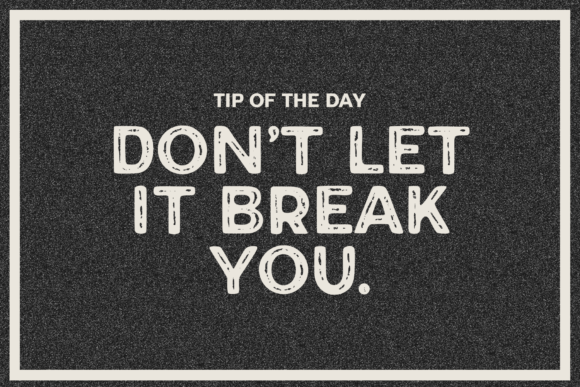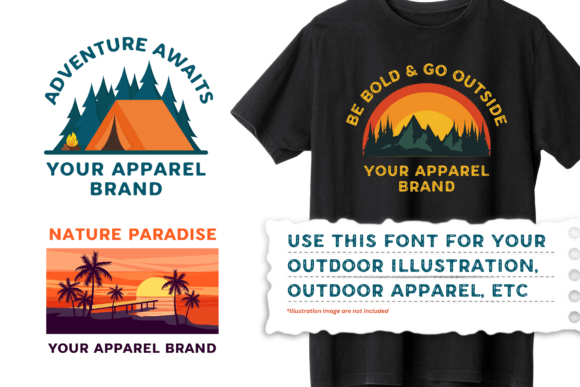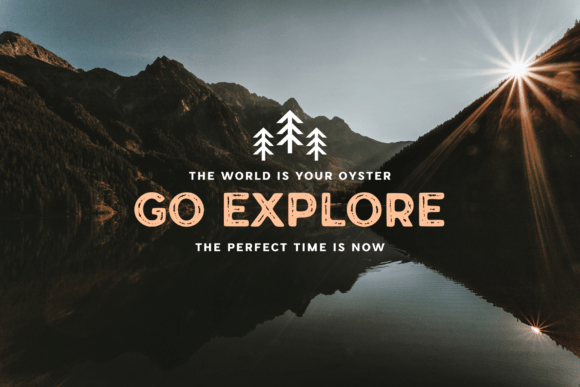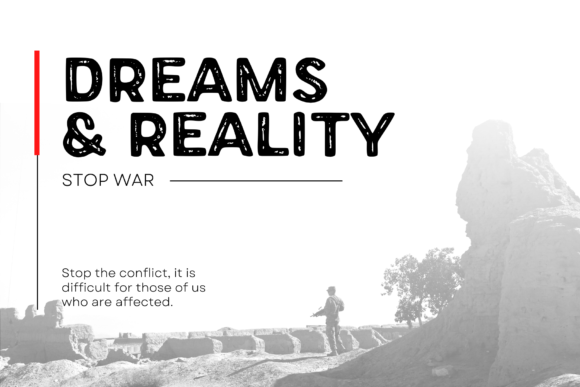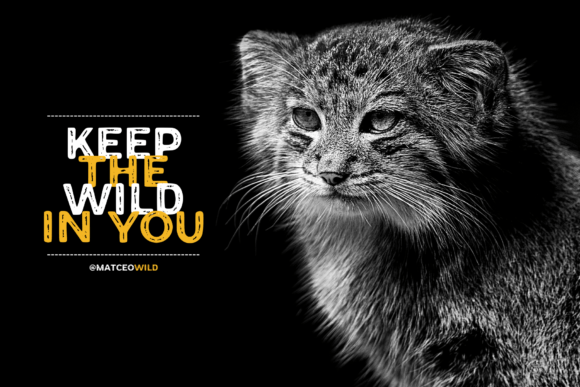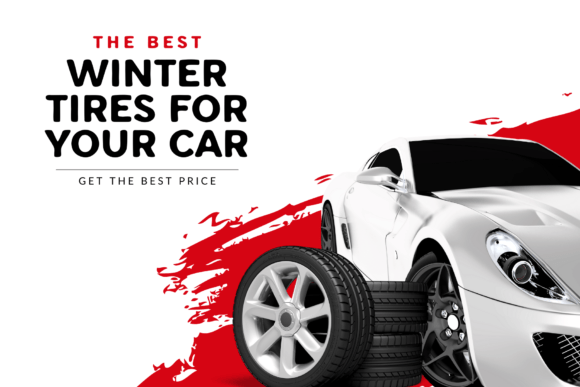
Introducing Forest Trophy Font: The Ultimate Classic Display Font for Outdoor Enthusiasts
Are you a designer or crafter looking for a font that captures the essence of the great outdoors? Look no further than Forest Trophy, a classic display font that features a rough texture, giving it a natural and vintage impression. This versatile font is perfect for a wide range of applications, including outdoor apparel, merchandise, event posters, movies, and more.
The Unique Charm of Forest Trophy Font
Forest Trophy font boasts a distinctive, rough texture that sets it apart from other display fonts. This texture gives the font a natural, earthy feel that’s reminiscent of vintage outdoor posters and advertisements. The font’s classic design ensures that it remains timeless and versatile, making it suitable for a variety of creative projects.
Key Features of Forest Trophy Font
- Rough Texture: The font’s rough texture gives it a unique, organic feel that’s perfect for outdoor-themed designs.
- Classic Design: Forest Trophy’s classic design ensures that it remains timeless and versatile, making it suitable for a wide range of applications.
- Vintage Impression: The font’s vintage impression is perfect for designers and crafters looking to create designs that evoke a sense of nostalgia and adventure.
- High-Quality: Forest Trophy font is a high-quality font that’s designed to deliver exceptional results in a variety of applications.
Use Cases for Forest Trophy Font
Forest Trophy font is incredibly versatile, making it suitable for a wide range of creative projects. Here are some use cases to consider:
- Outdoor Apparel: Use Forest Trophy font to create bold, eye-catching designs for outdoor apparel, such as hiking shirts, jackets, and hats.
- Merchandise: The font is perfect for creating merchandise, such as stickers, decals, and posters, that appeal to outdoor enthusiasts.
- Event Posters: Forest Trophy font is ideal for creating event posters for outdoor events, such as music festivals, hiking events, and camping trips.
- Movies and Film: The font’s classic design and vintage impression make it suitable for use in movie and film titles, credits, and promotional materials.
Tips for Using Forest Trophy Font
Here are some tips for getting the most out of Forest Trophy font:
- Use it boldly: Forest Trophy font is designed to make a statement, so don’t be afraid to use it boldly and prominently in your designs.
- Experiment with colors: The font’s rough texture and vintage impression lend themselves well to a wide range of colors, so experiment with different color schemes to find the one that works best for your design.
- Pair it with other fonts: Forest Trophy font pairs well with other fonts, such as sans-serif fonts and script fonts, so don’t be afraid to experiment with different font combinations.
Forest Trophy font is a classic display font that offers a unique combination of rough texture and vintage impression. Its versatility and high-quality design make it suitable for a wide range of creative projects, from outdoor apparel and merchandise to event posters and movies. Whether you’re a designer or crafter, Forest Trophy font is a great addition to your font library.